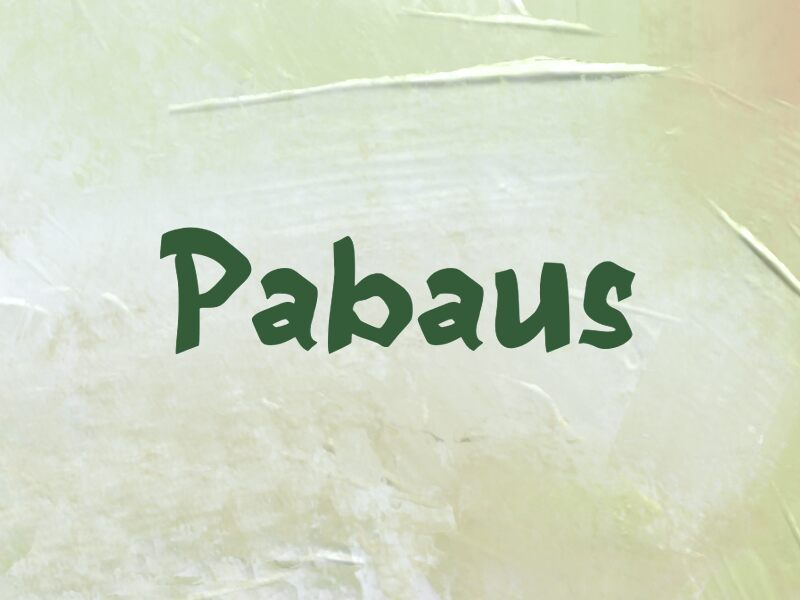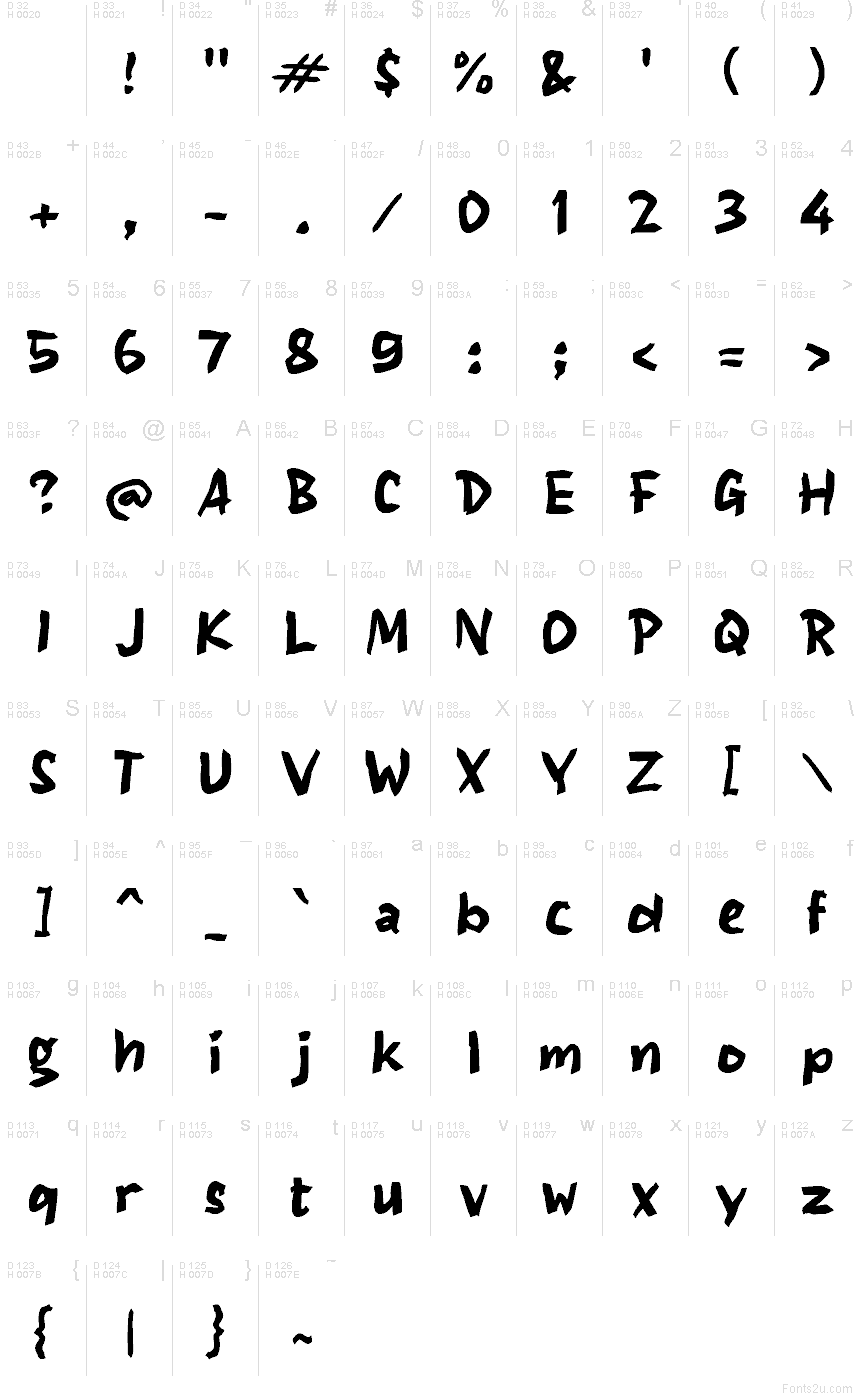
Pabaus
Pabaus font by wepfont.com is a free decorative display typeface with a wild, hand-painted attitude. Its chunky, ink-heavy strokes and slightly uneven rhythm feel like they were slapped onto a poster with a thick brush, giving text a loud, human presence. Letters crowd together in a tight, energetic flow that reads fast while still looking raw and expressive.
Using Pabaus, headlines feel shouted rather than spoken, which works beautifully for gig posters, zines, streetwear branding, bold YouTube thumbnails, skate or graffiti-inspired graphics, and kids’ activity titles. This free font thrives at large sizes where its rough edges and inky texture can breathe. Pair Pabaus with a clean geometric sans for body copy to balance its punchy personality.